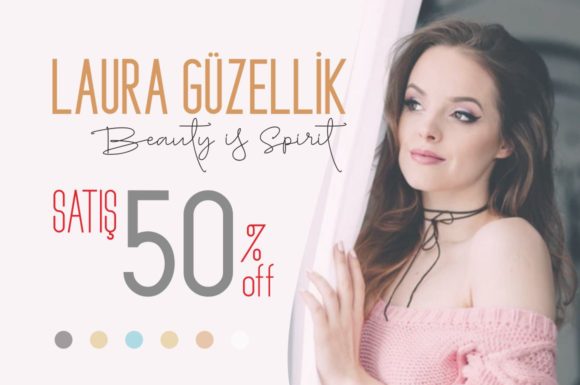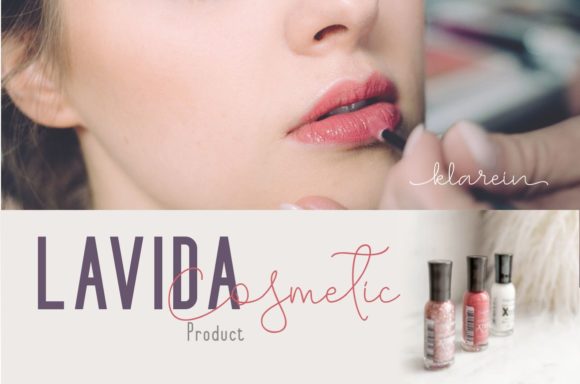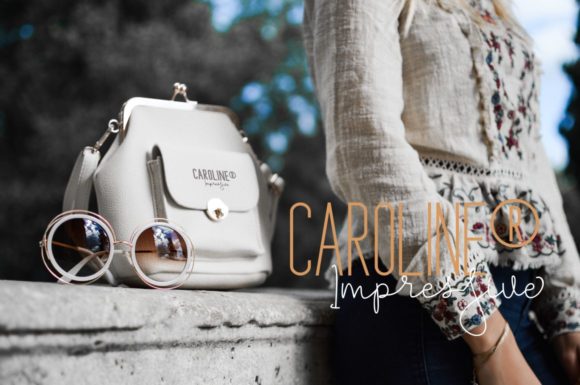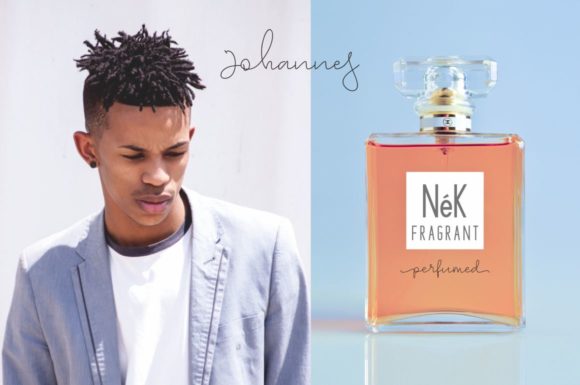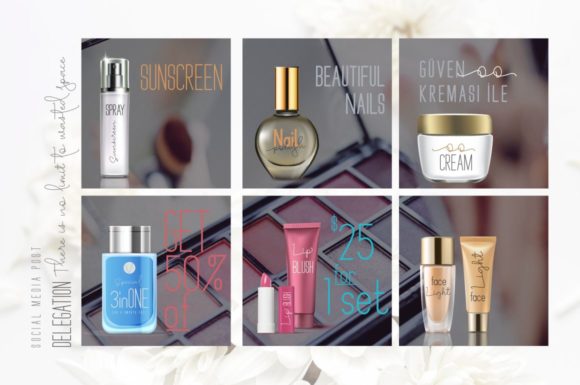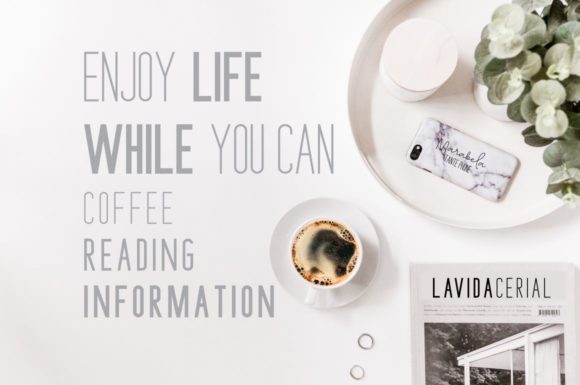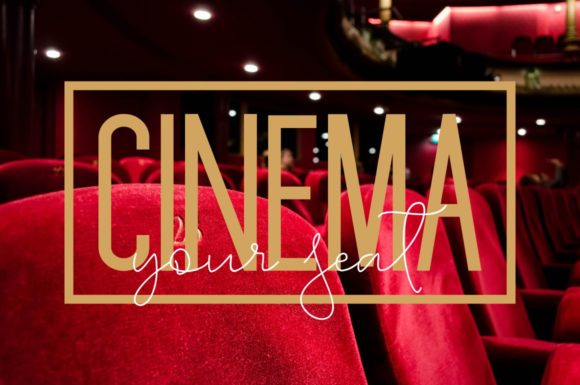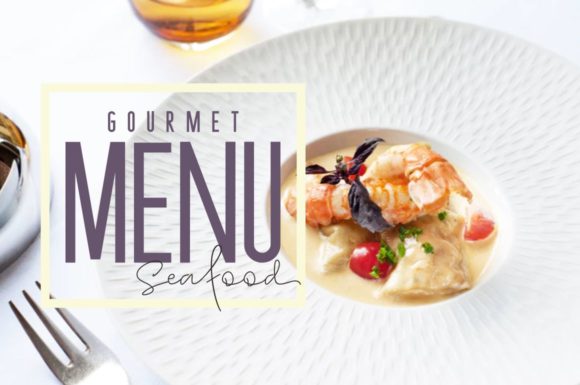
Delegation Family Font
About Delegation Family Font
Delegation is a stunning font family with four amazing fonts. Combine them and create beautiful designs in an instant!